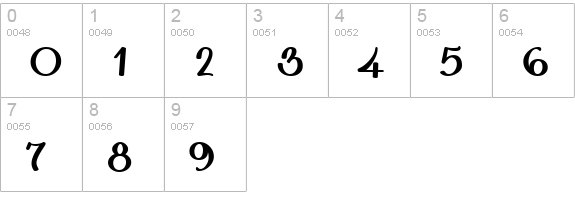
IngrianaCasual Bold Font Details
IngrianaCasual Bold is a strong, high-contrast variant in the IngrianaCasual typeface family \xE2\x80\x94 well suited to headlines, attention-grabbing titles, and strong calls-to-action.
IngrianaCasual Bold is a stylish and modern font that exudes confidence and charm. With its bold and distinct letterforms, this font is perfect for creating eye-catching designs that demand attention. The thick strokes make a strong statement, while the rounded edges add a touch of playfulness. This font is versatile and can be used for a variety of projects, from branding and packaging to logos and headlines. It is particularly well-suited for designs that require a bold and impactful look, such as posters, flyers, and social media graphics. What sets IngrianaCasual Bold apart is that it is freely available to download at FontsMarket.com. This means that you can easily access this font without any cost, making it an excellent choice for designers on a budget or those who simply appreciate the value of free resources. IngrianaCasual Bold is not only visually appealing but also highly legible, ensuring that your message is conveyed effectively to your audience. Whether you are designing for print or digital platforms, this font will make your text stand out and leave a lasting impression. So why wait? Download IngrianaCasual Bold today from FontsMarket.com and let your creativity soar. Add a touch of boldness and elegance to your designs, all while enjoying the freedom of accessing this font for free.